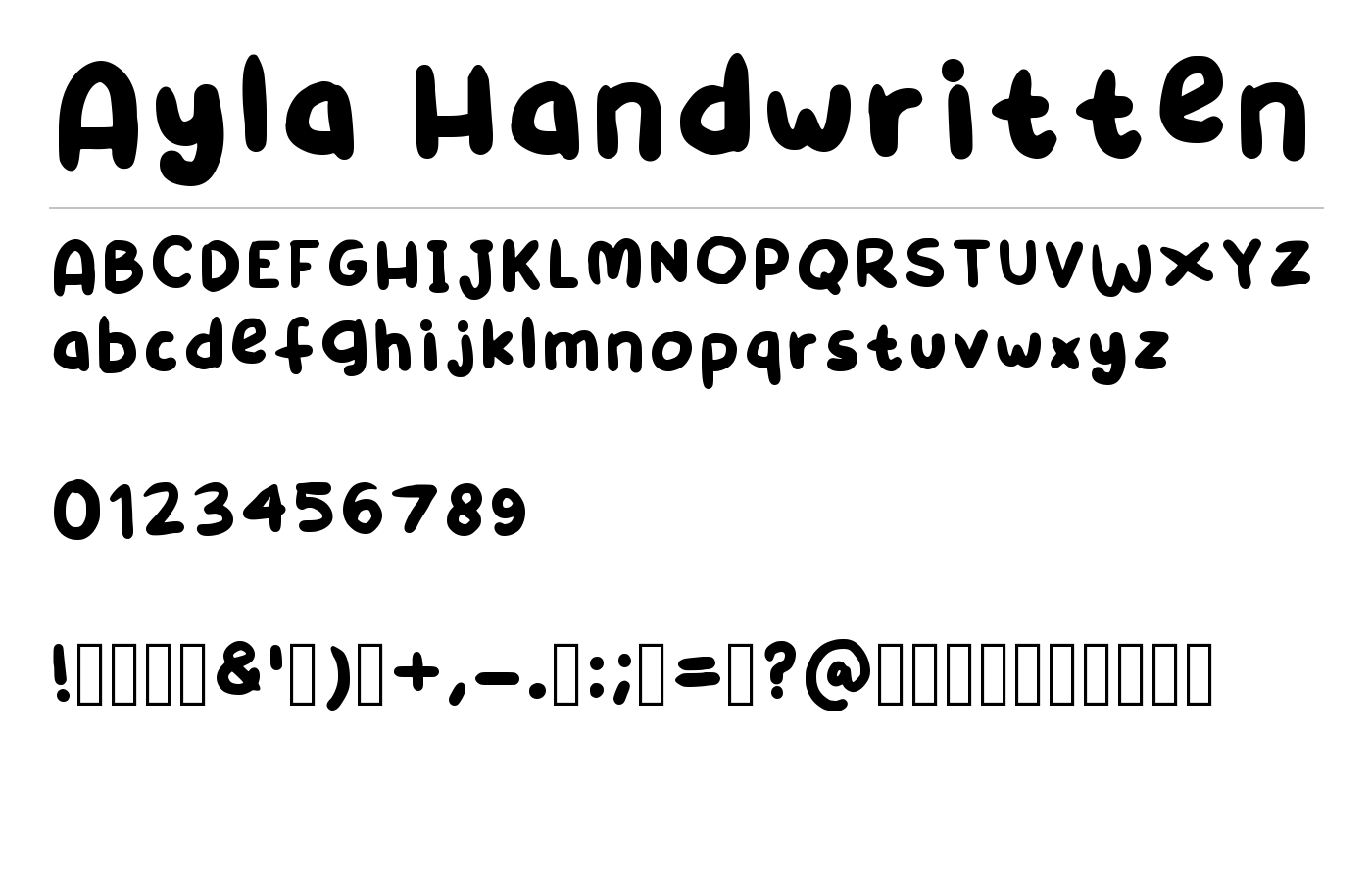
Ayla Handwritten is a playful, casual sans serif font that mimics natural handwriting with rounded, slightly uneven strokes and a friendly, approachable feel. It features a bold weight and consistent stroke width, making it easy to read while conveying warmth and personality, perfect for informal branding, children’s materials, and creative projects. This font works well for headlines, logos, and packaging where a fun and personal touch is desired.
Ayla Handwritten Font